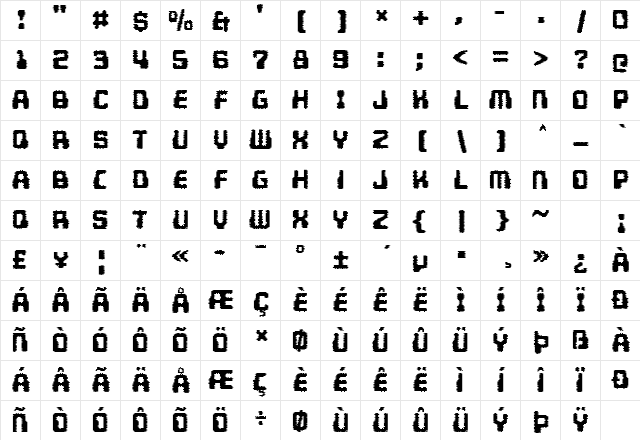
Multivac Interference Free Font
Multivac Interference
Style: Interference
Foundry: Andrew Young
Designer: Andrew Young
Multivac Family
Multivac Interference
Design Context for Multivac
Multivac is a composed and adaptable typeface that performs quietly and consistently across a wide range of design contexts.